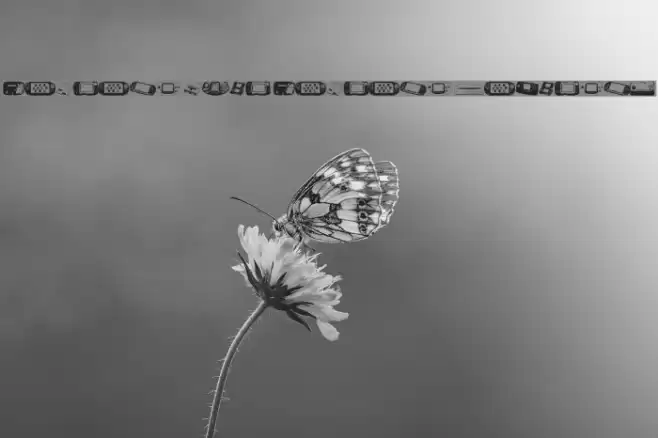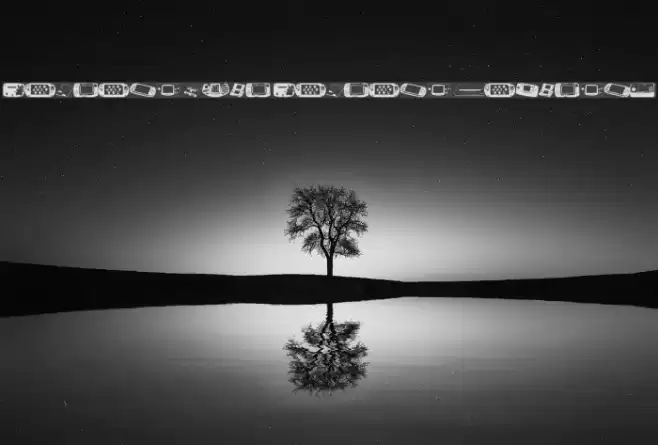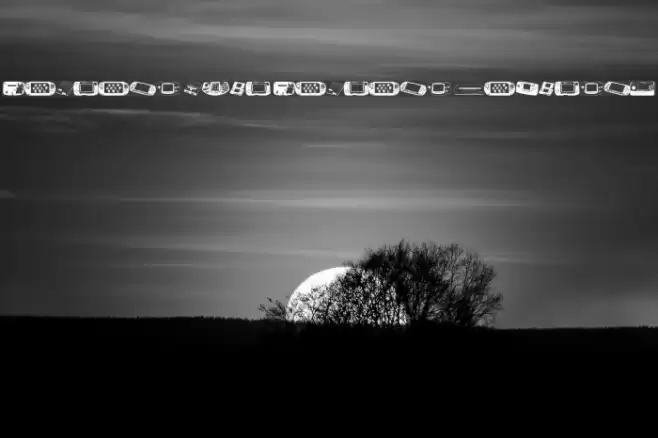
A decorative display font composed of detailed, hand-drawn illustrations of various video game consoles and handheld devices arranged in place of traditional alphanumeric characters and symbols. Each glyph is a unique console or controller, rendered in a black-and-white, sketch-like style.
A display font featuring hand-drawn video game consoles as characters from Dingbats fonts.
- Proposed Projects: Posters, t-shirt designs, gaming event branding, retro gaming websites, novelty merchandise.
- Overall Style: Decorative, playful, retro-inspired
- Use Case: Logos, headlines, posters, themed graphics